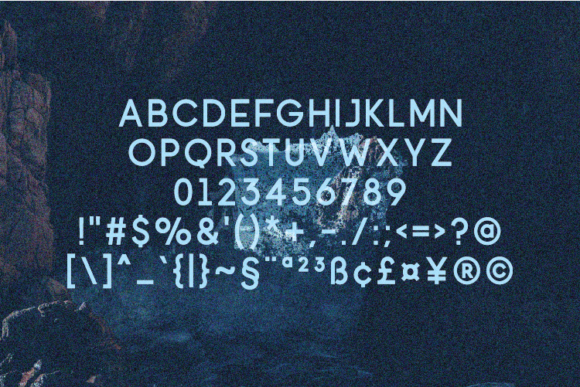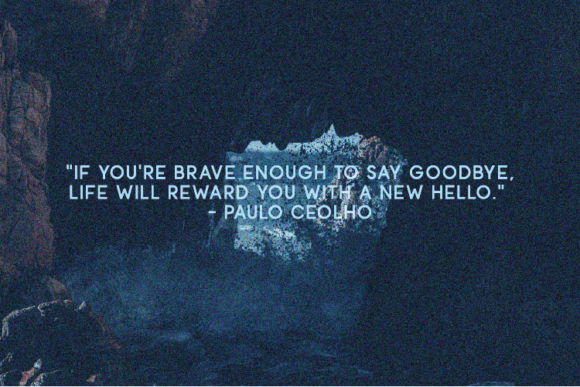
The Heroad Font: A Designer’s New Best Friend
I’ll never forget the time I was working on a logo design project for a client who wanted a modern, sleek look. I had spent hours browsing through font libraries, but nothing seemed quite right. That’s when I stumbled upon the Heroad font. It was like a breath of fresh air – clean, elegant, and incredibly versatile. In this article, I’ll share my experience with Heroad, its features, and how to make the most of it in your designs.
First Impressions: A Review of Heroad
- ✨ Clean and Modern Design: Heroad’s sans-serif design makes it perfect for a wide range of projects, from logos and headings to invitations and more.
- ✅ Highly Versatile: This font can be used for both digital and print projects, making it a great addition to any designer’s toolkit.
- 💡 Easy to Read: Heroad’s clear and concise lettering ensures that your message is always communicated effectively.
While Heroad is an excellent font, there are a few things to keep in mind:
- 🤔 Limited Emphasis on Decorative Elements: As a clean and minimalist font, Heroad may not be the best choice for projects that require a lot of decorative flair.
- ⚠️ May Not Suit All Brand Identities: Heroad’s modern design might not be suitable for brands that require a more traditional or vintage look.
The Story Behind Heroad
Heroad was designed with the goal of creating a clean, modern sans-serif font that could be used for a wide range of projects. Inspired by the latest design trends, Heroad’s creator aimed to craft a font that was both elegant and highly versatile. While the exact backstory of Heroad is unclear, its design is undoubtedly influenced by a passion for clean typography and a desire to create a font that would complement any project.
| Author | Nan Design |
Q: What type of projects is Heroad best suited for?
A: Heroad is an incredibly versatile font that can be used for a wide range of projects, including logos, headings, invitations, and more.
Q: Is Heroad a script font?
A: No, Heroad is a sans-serif font with a clean and modern design.